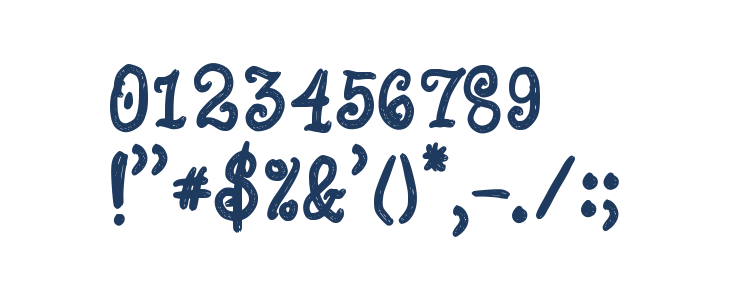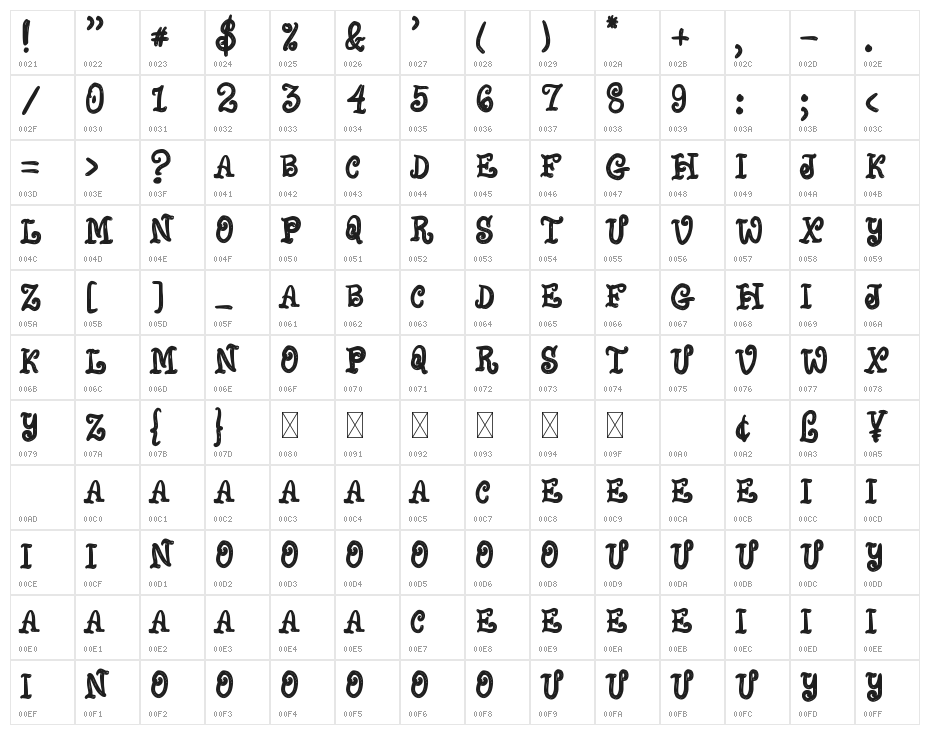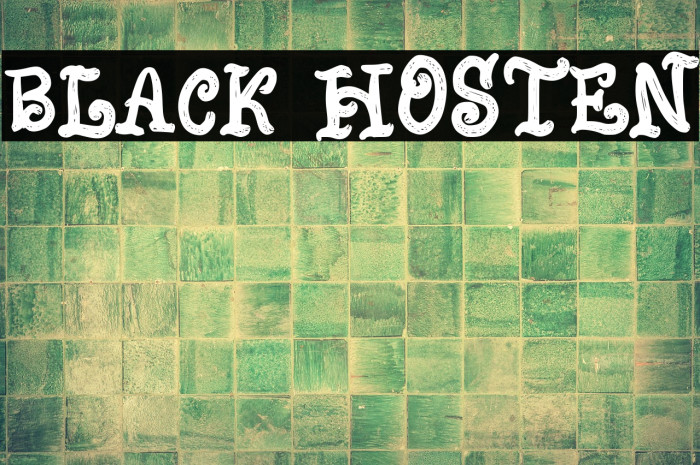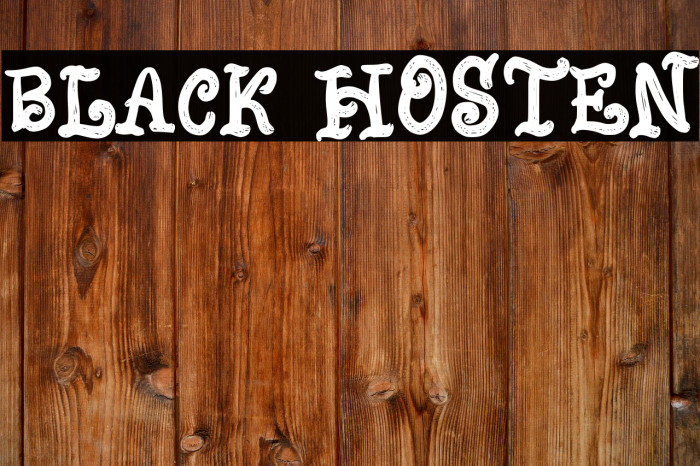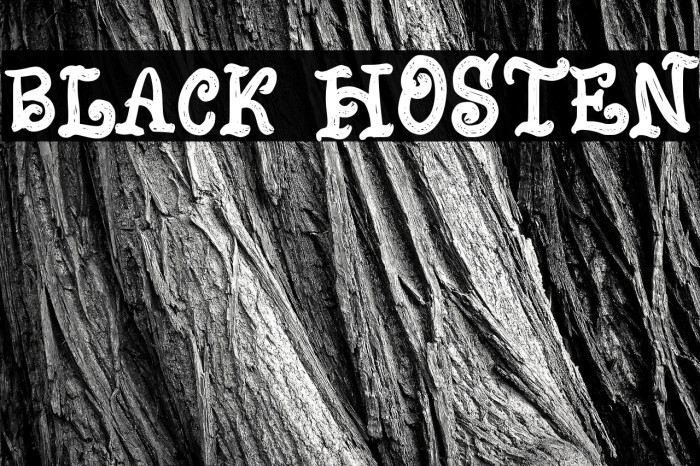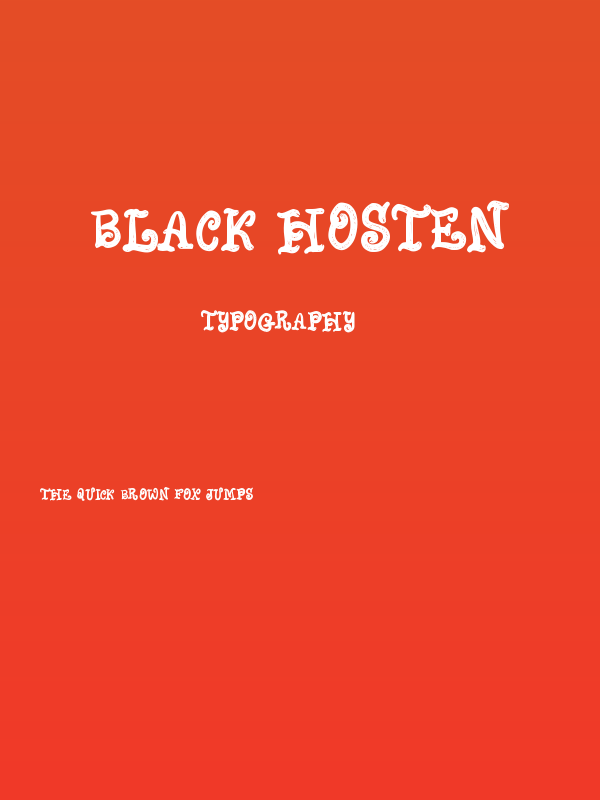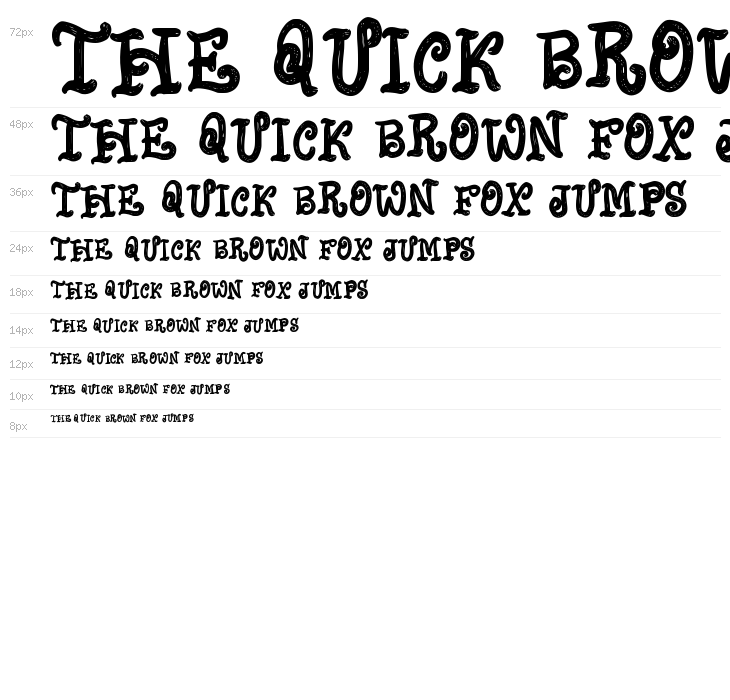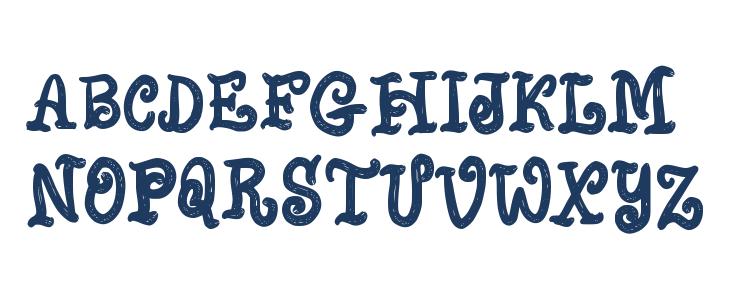
Black Hosten Font
Black Hosten Description
This font features a bold and playful design with a decorative flair. The characters are heavily stylized with a hand-drawn appearance, incorporating thick strokes and rounded edges. The letters have a whimsical quality, with unique embellishments that give each character a distinct personality. The numbers and special characters maintain the same playful style, ensuring consistency throughout the font. This font is ideal for projects that require a fun and engaging visual impact.